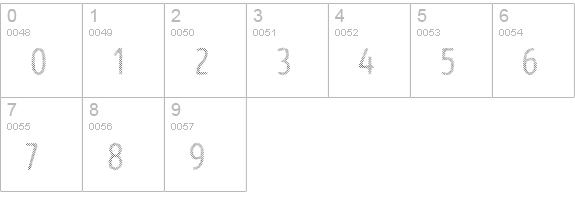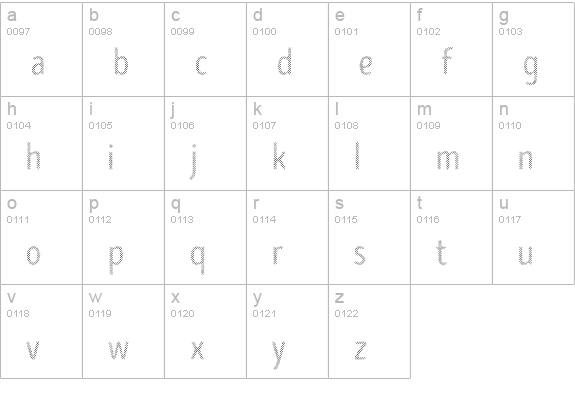
Intro Head B H1 Font Details
The Intro Head B H1 font is a modern and stylish typeface that is perfect for creating eye-catching headings and titles. Its bold and distinctive design makes it stand out and grab attention. With its clean lines and sleek appearance, this font is sure to make a statement in any design project. Best of all, the Intro Head B H1 font is completely free to download at FontsMarket.com. This means you can easily add this striking font to your collection without any cost. Whether you're working on a poster, flyer, website, or any other design project, the Intro Head B H1 font is a versatile choice that will help your text pop and make a lasting impression. Download it today and elevate your designs with this exceptional typeface.